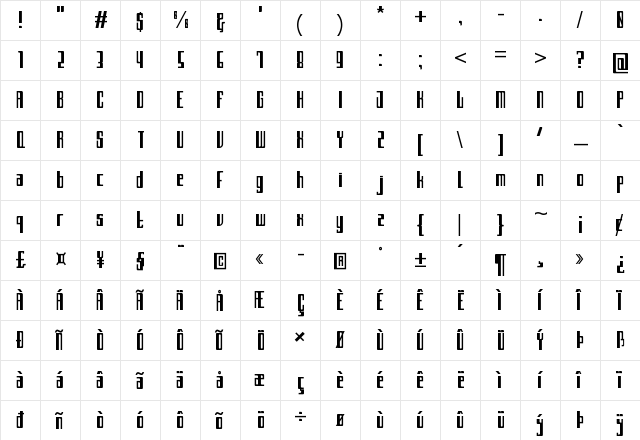
Archimate Regular
| Foundry | Kong Font |
| Designer | Typeface騋ongFont).2020. |
Design Context for Archimate Typeface
Archimate offers clean, dependable letterforms without strong stylistic allegiance, making it a practical choice for designers who need flexibility.